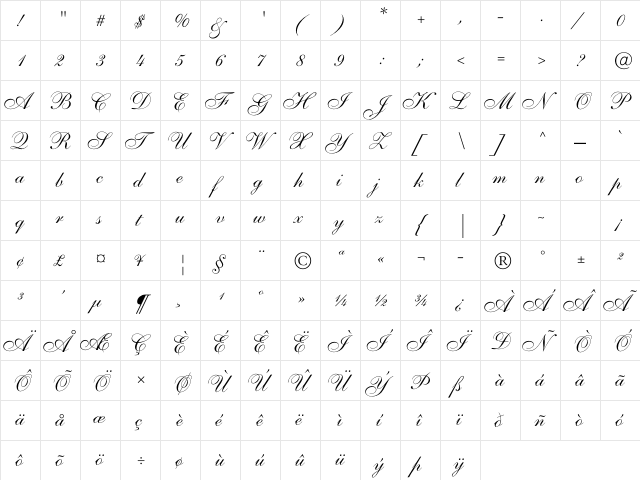
Allegretto Script OneC Regular
Design Context for Allegretto Script OneC Typeface
Allegretto Script OneC flows with the natural rhythm of handwritten lettering, making it ideal for designs that call for warmth and personal expression.
Font Pairing: Combine Allegretto Script OneC with a simple geometric sans for maximum contrast — the tension between flowing curves and clean structure is a classic typographic pairing.
Pro Tip: Pair Allegretto Script OneC with a clean sans-serif for supporting text. The contrast between fluid script and geometric structure creates an elegant typographic hierarchy.